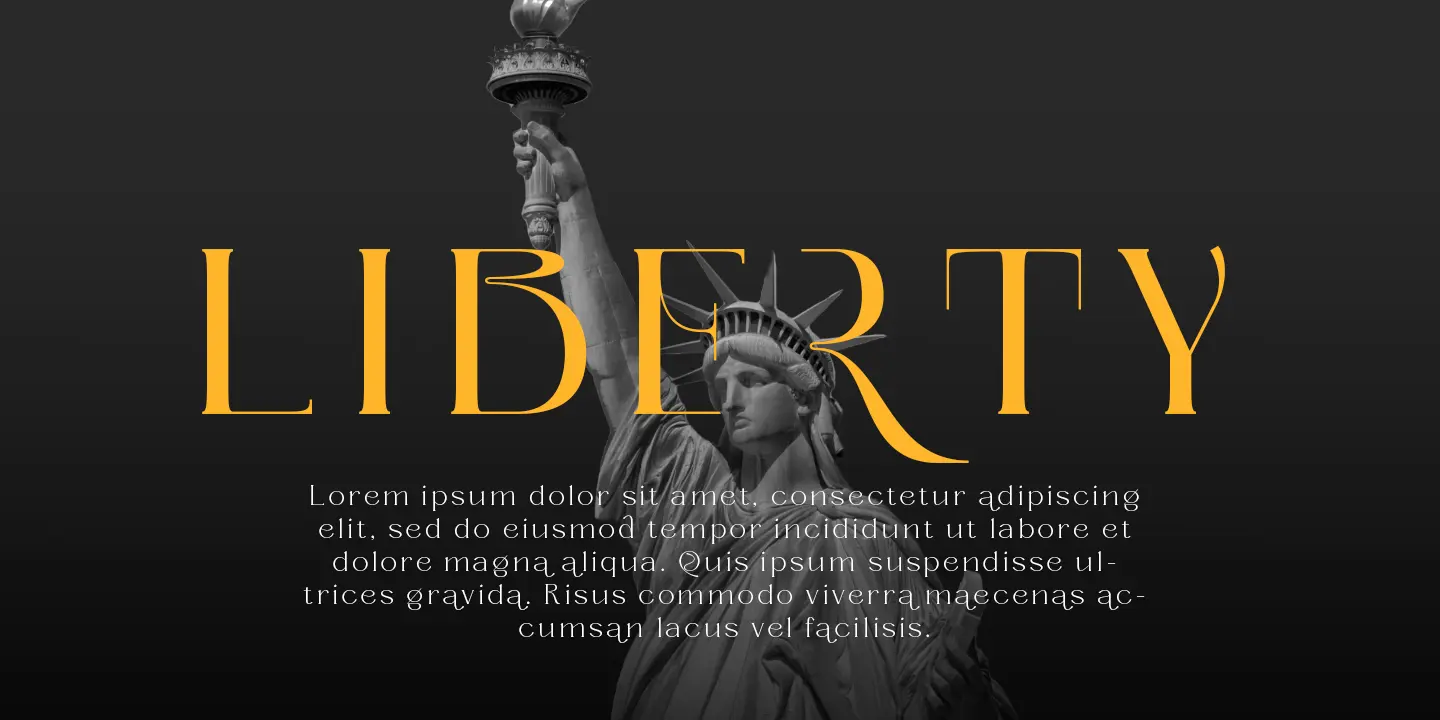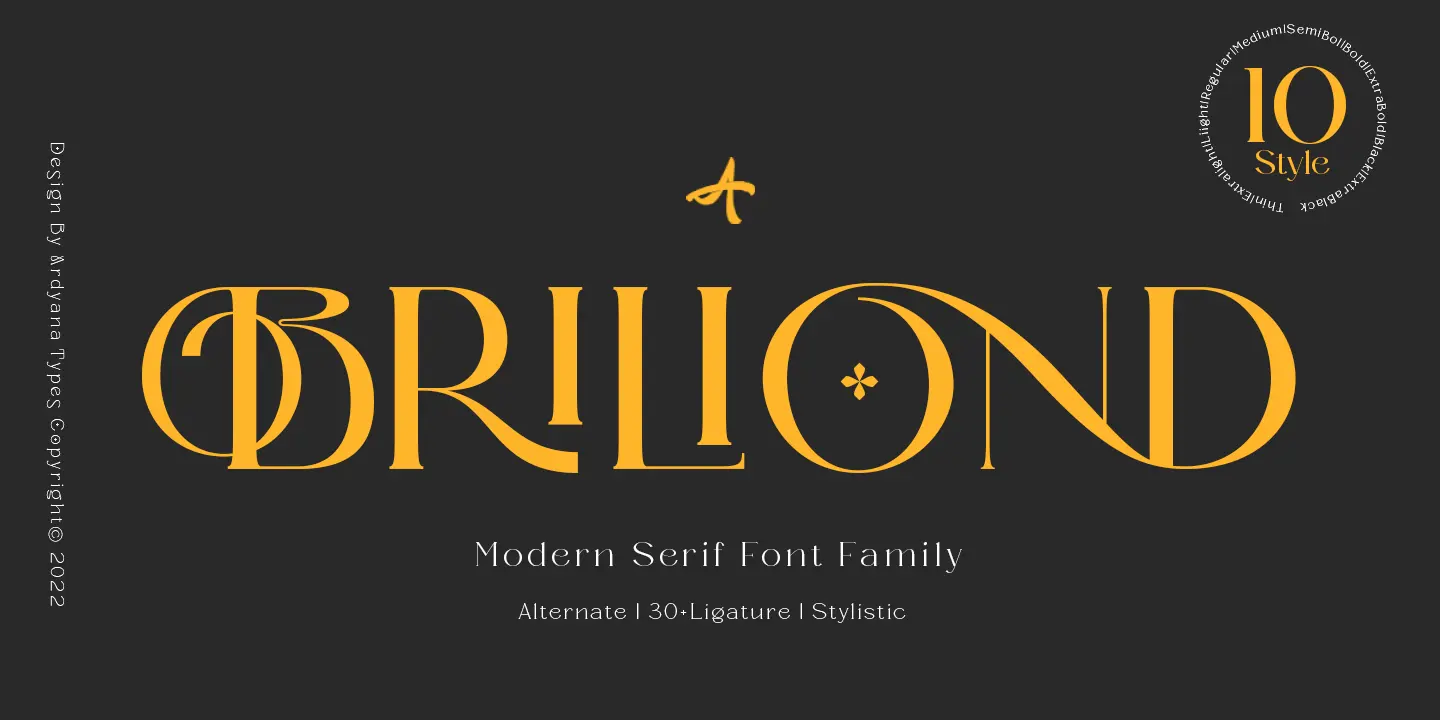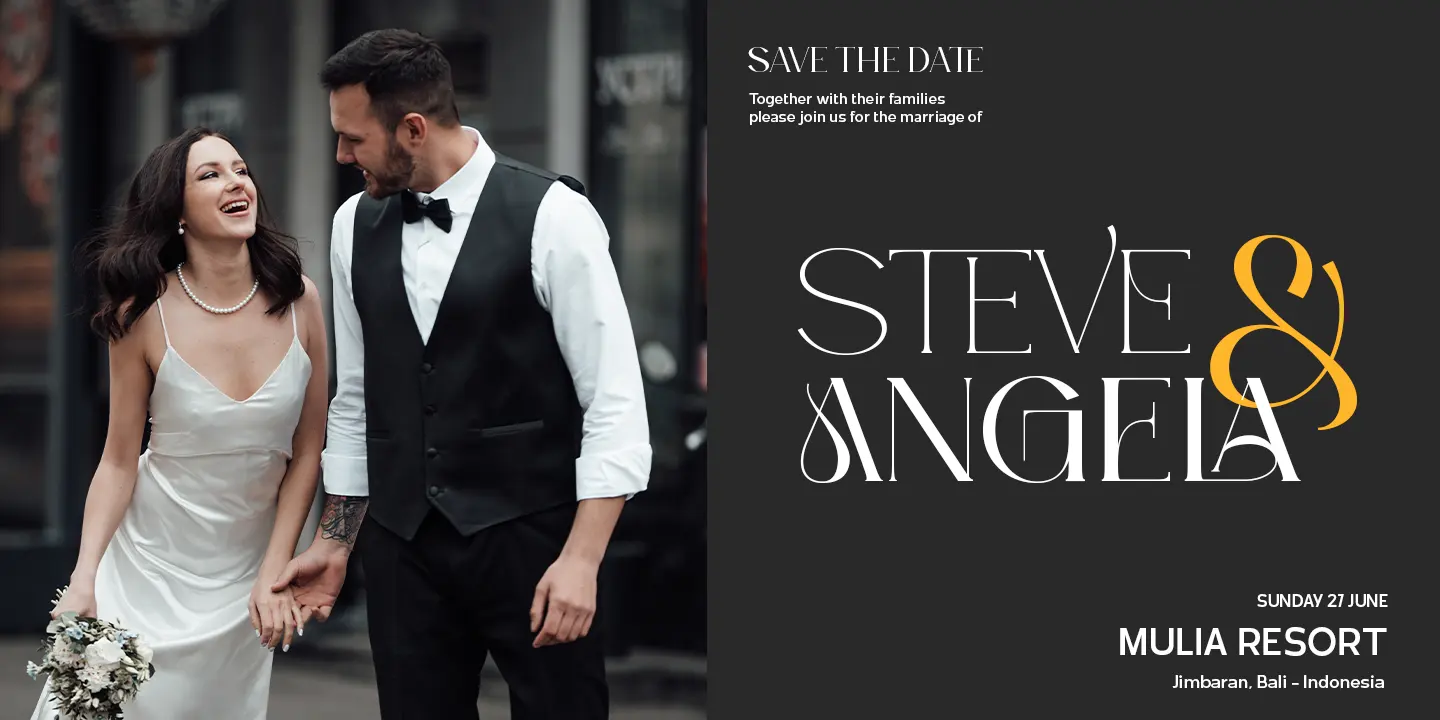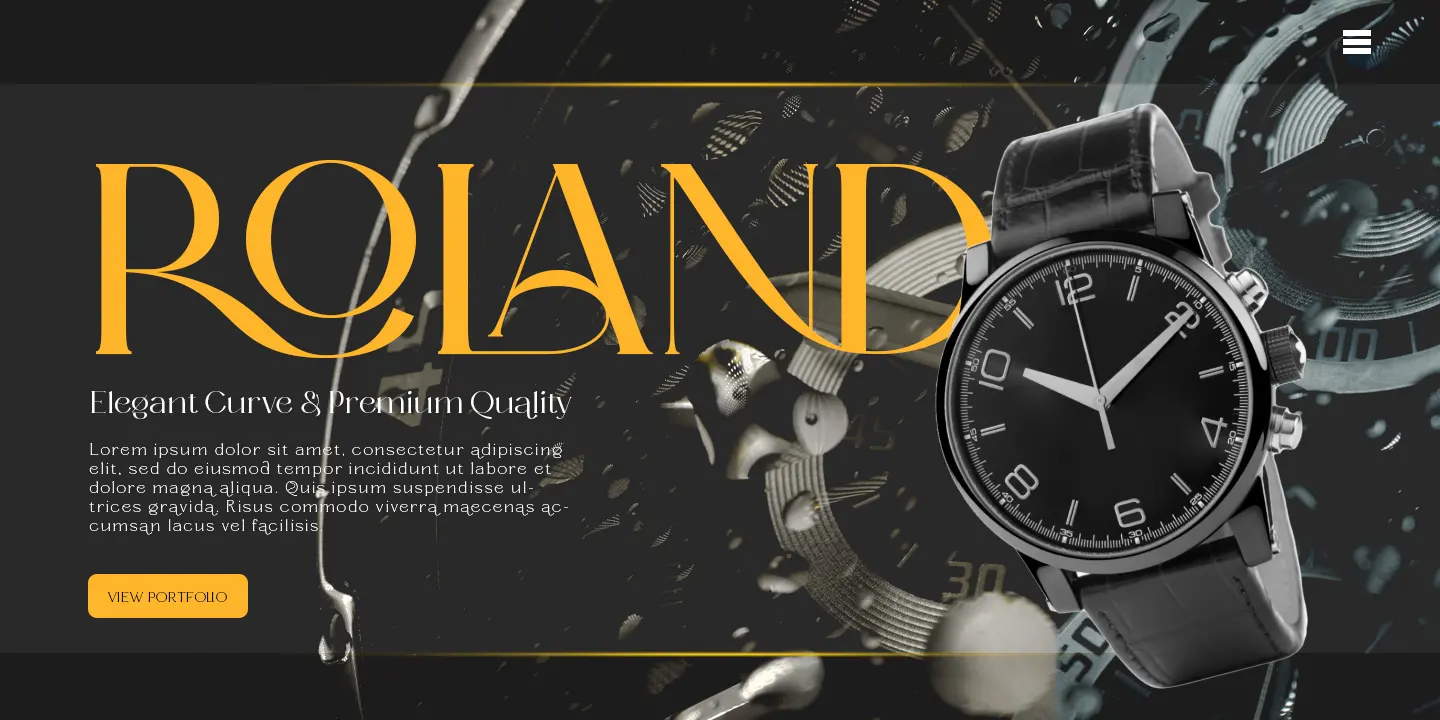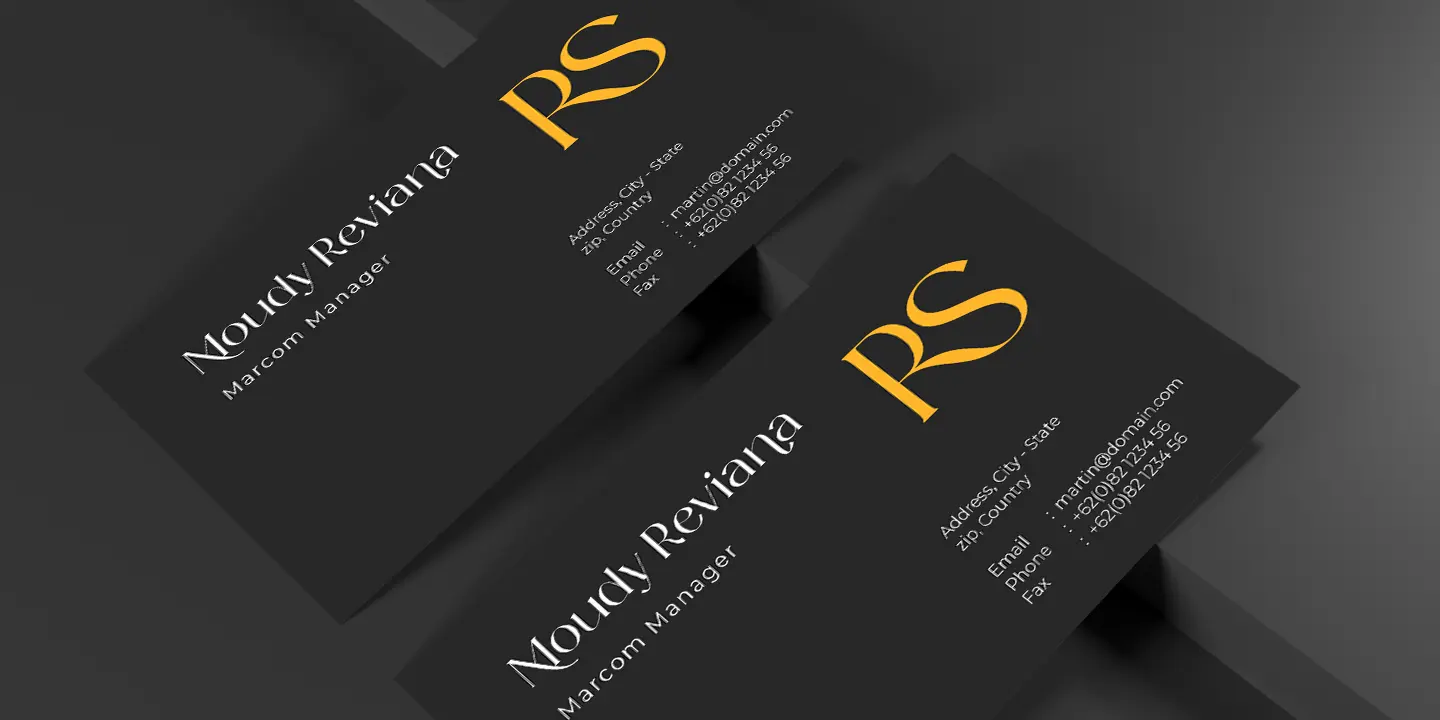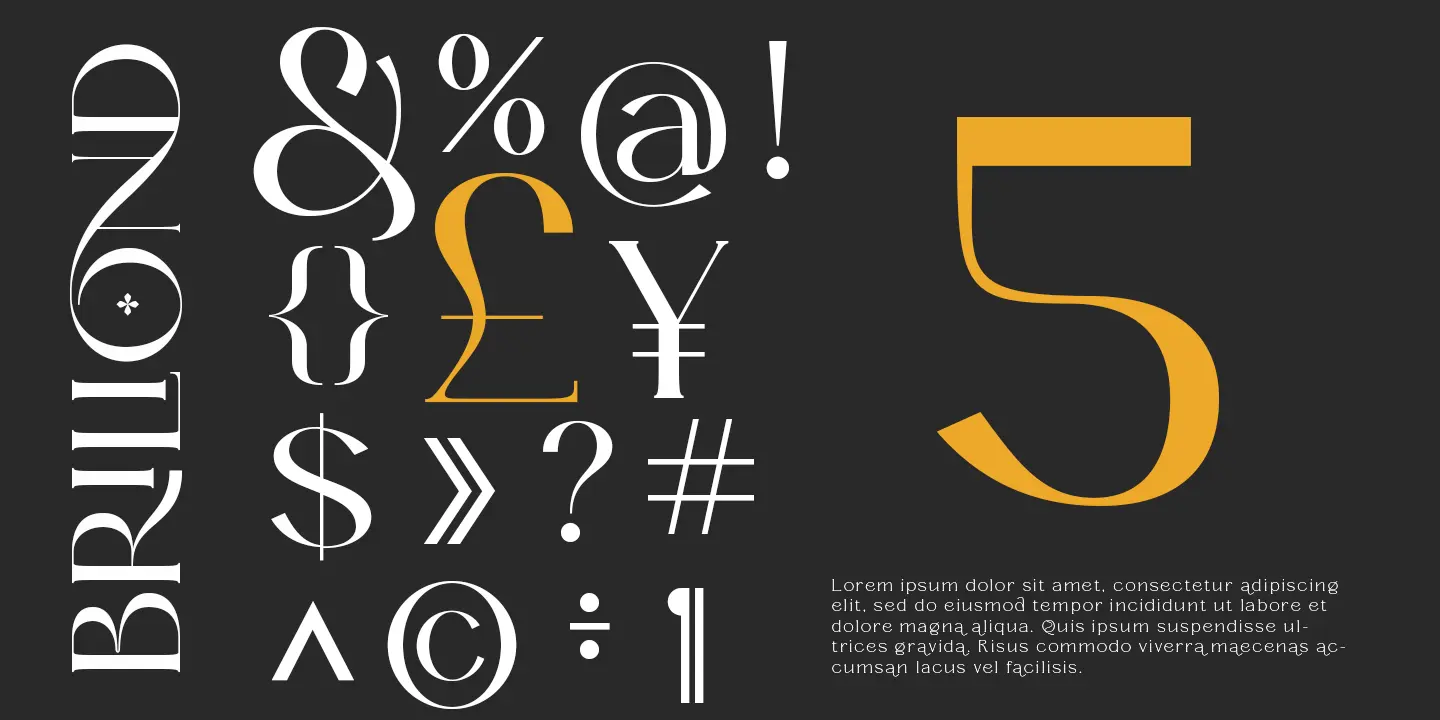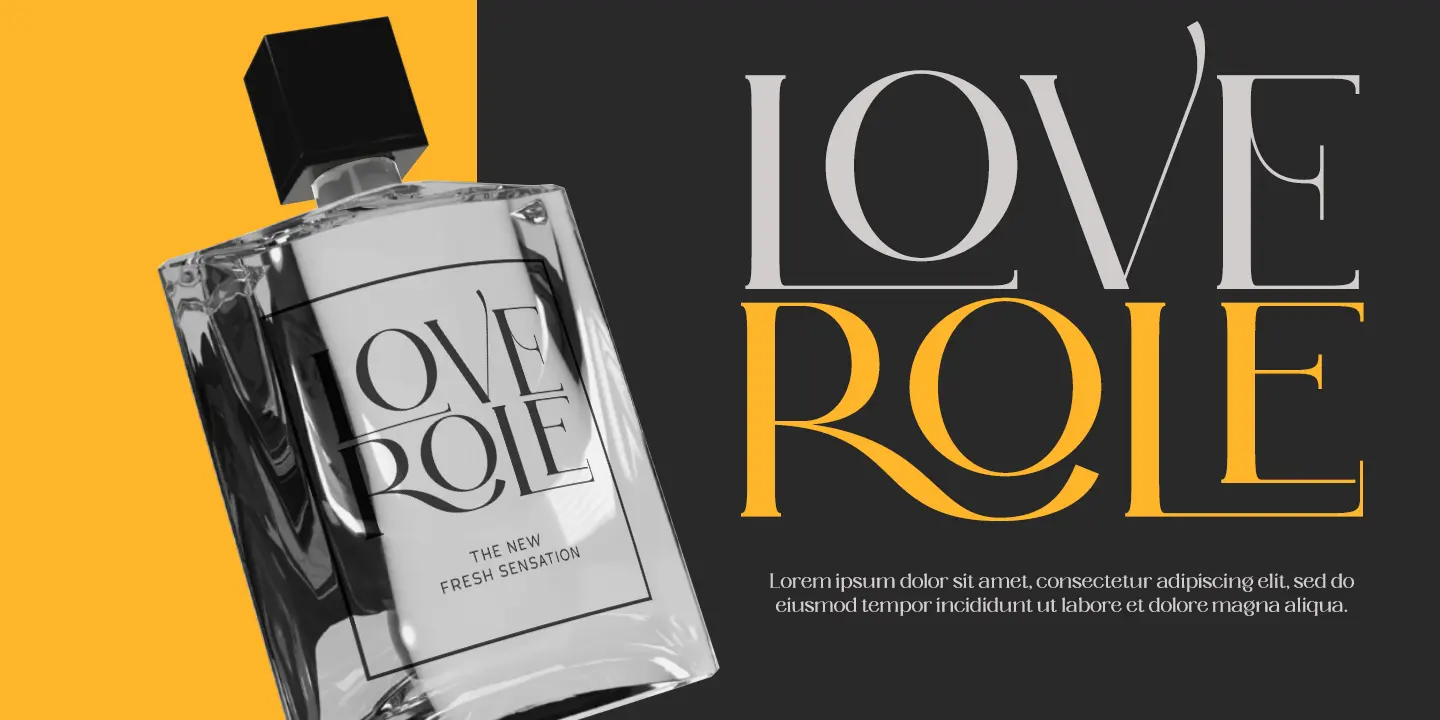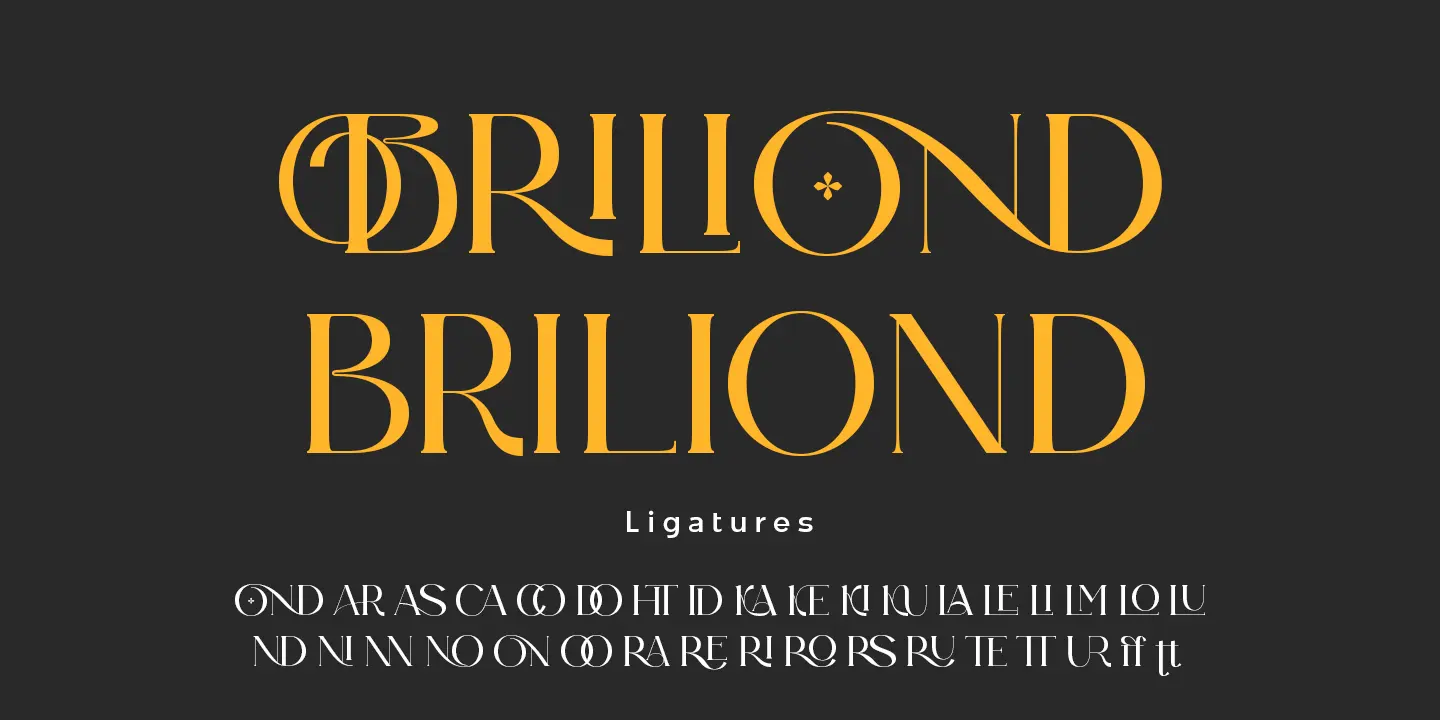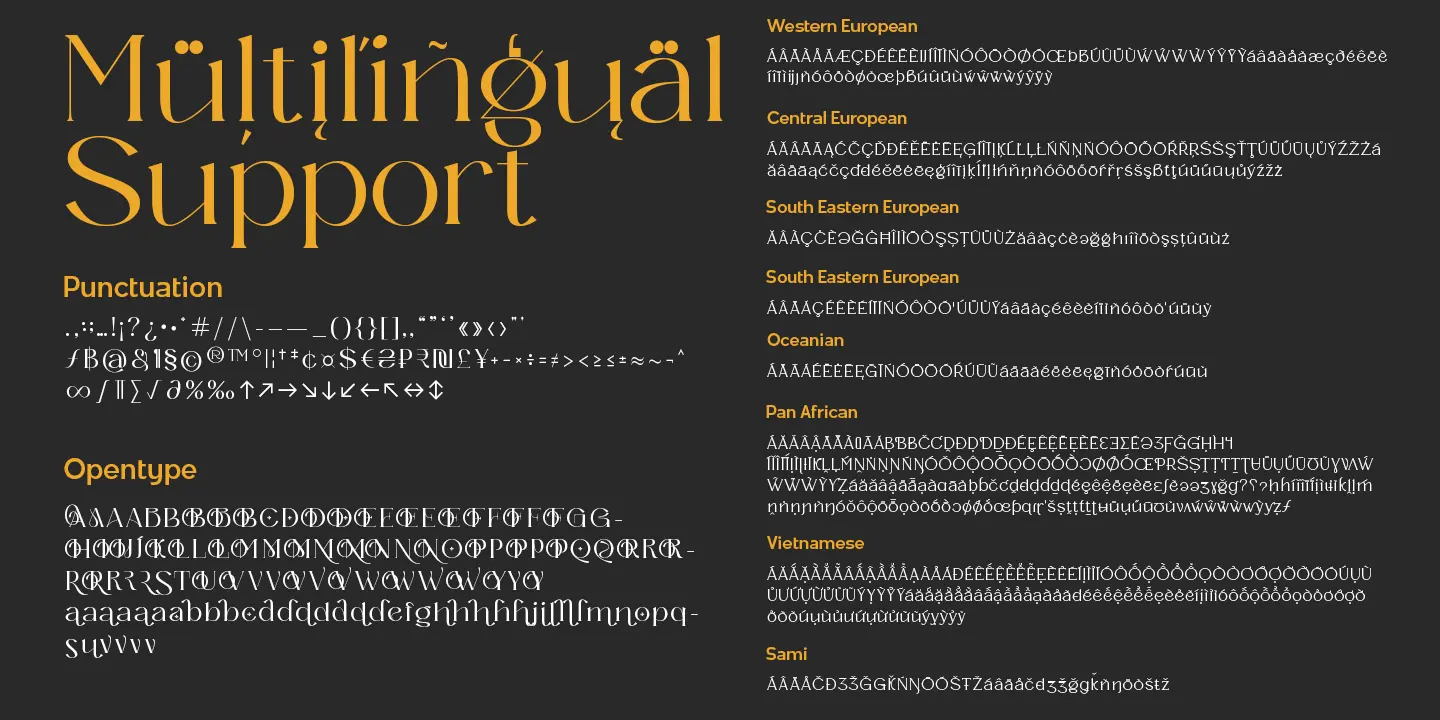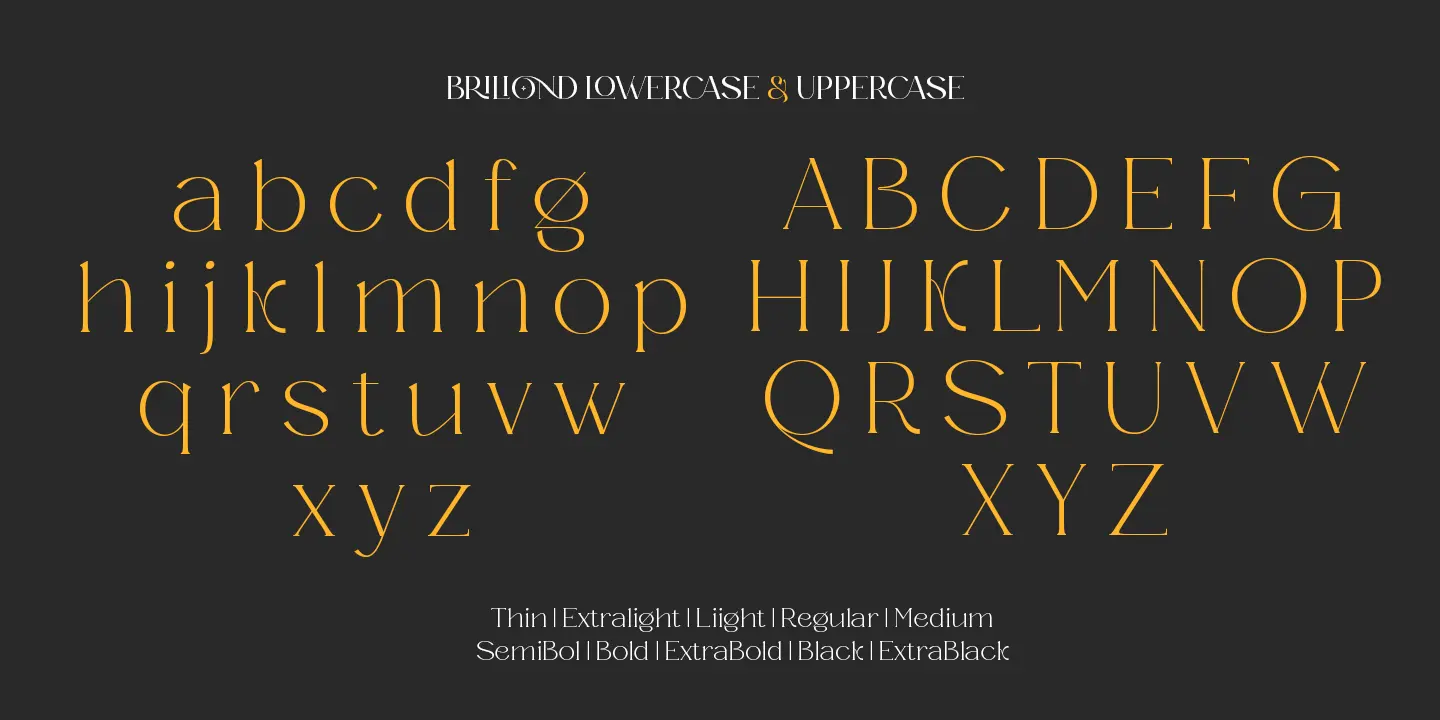
Briliond - Modern Serif
Briliond has an aesthetic style, and the serif-type tagline is modern and elegant. This font is equipped with ten levels of thickness, from thin to black suits your needs. Briliond is also equipped with the latest professional characteristics that can present an elegant and attractive identity for your company or project for business purposes. It goes well with modern serifs, and scripts depicted or stand firm as a title and brand representative for an elegant look.
Briliond also comes with multiple languages, making it easy for any country and language use. It also comes with alternative Ligatures and styles to make your designs more attractive. Briliond is suitable for branding projects and various design purposes such as business cards, name tags, and uniforms as a brand enhancement. Advertisements, posters, invitations, branding, logos, magazines, merchandise, presentations, etc.
• OND OND
• AR AR
• AS AS
• CA CA
• CO CO
• DO DO
• HT HT
• ID ID
• KA KA
• KE KE
• KI KI
• KU KU
• LA LA
• LE LE
• LI LI
• LM LM
• LO LO
• LU LU
• ND ND
• NI NI
• NN NN
• NO NO
• ON ON
• OO OO
• RA RA
• RE RE
• RI RI
• RO RO
• RS RS
• RU RU
• TE TE
• TT TT
• UR UR
• ; ;
• { {
• } }
• = =
• > >
• < <